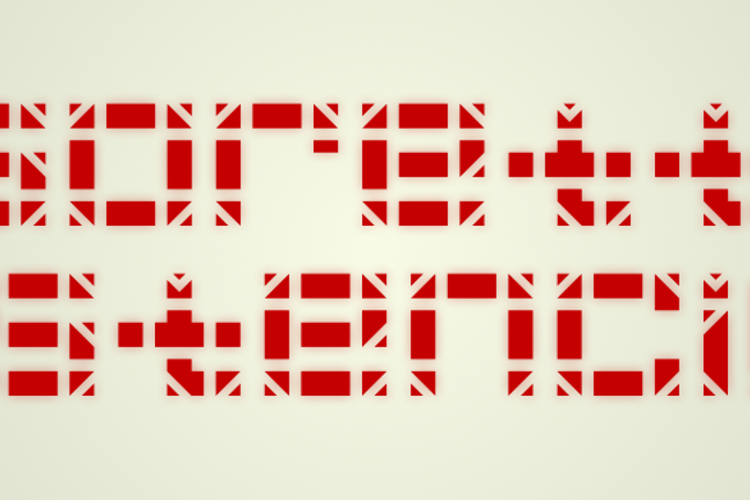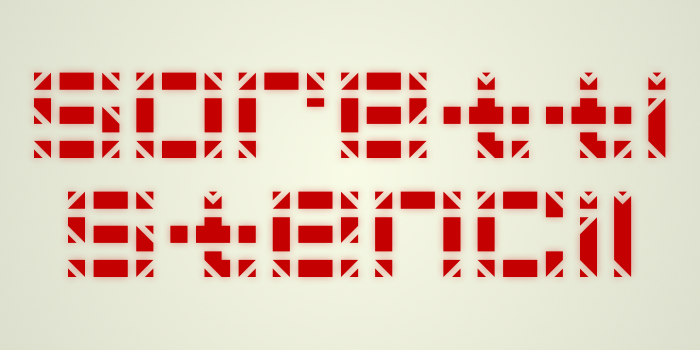
Soretti Stencil Font
by Pixel Kitchen
A stencil design in which diagonal cuts are used to imply angles and curves. It does not quite obey the rules of a segmented display, but it tries its best!